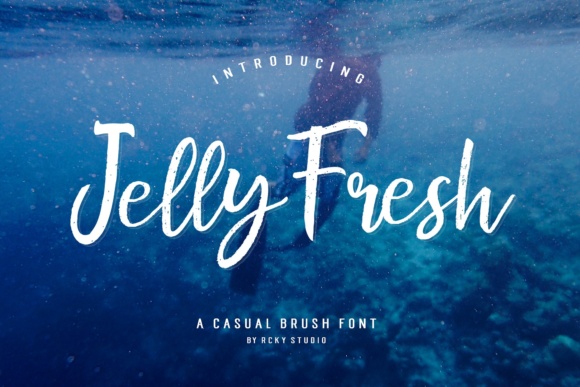
Behold, the Jelly Fresh Font, a captivating and visually striking creation that will captivate your designs with its contemporary appeal and handwritten charm.
With its organic, irregular baseline and handcrafted touch, Jelly Fresh Font offers an aesthetic that is both unique and irresistibly eye-catching. This font is a true masterpiece, capable of infusing life and personality into any project it graces.
Whether you're crafting eye-catching logos, creating stunning invitations, designing captivating social media posts, or seeking to leave an unforgettable impression on any visual project, Jelly Fresh Font is your perfect companion. Its versatile nature allows it to seamlessly adapt to a wide range of design styles, from playful and whimsical to elegant and sophisticated.
Designed by the talented rckystudio, Jelly Fresh Font is not just a collection of letters, but an art form that brings a touch of artistry to your creative endeavors. Let your imagination run free as you explore the endless possibilities that this font unlocks.